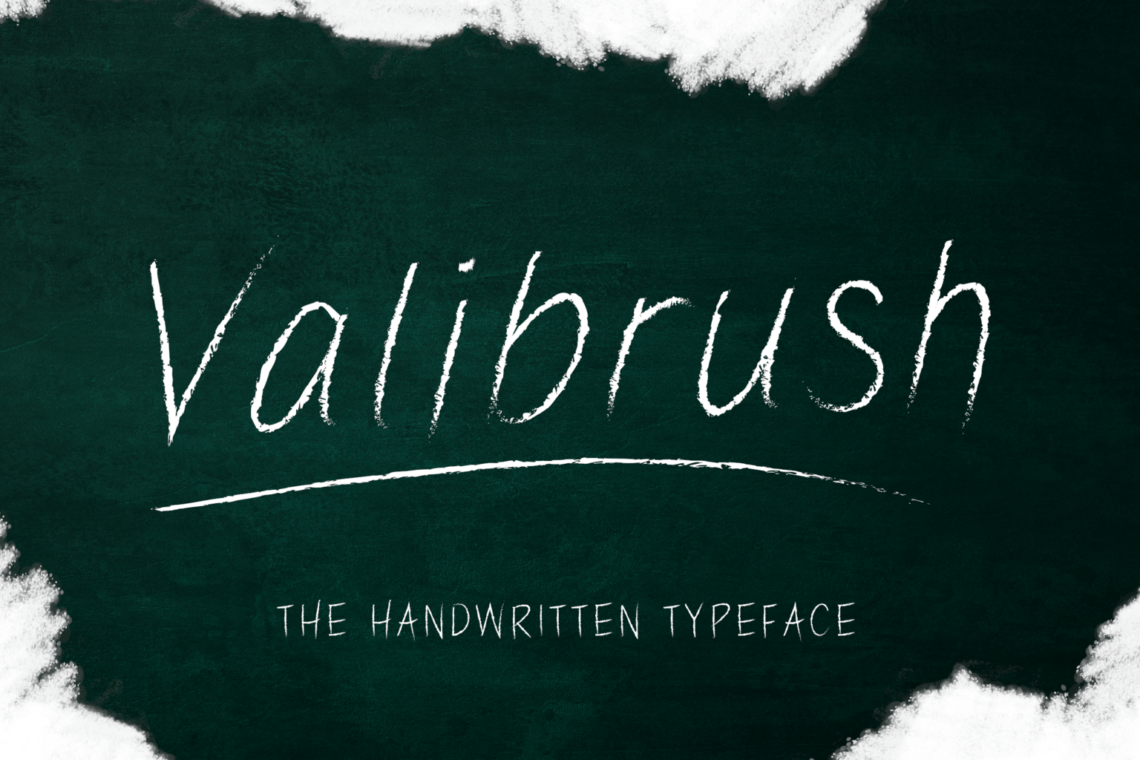
Valibrush Handwritten
Valibrush Handwritten is a fully handwritten font like writing on a whiteboard, belonging to the classic script font family. with an understated realism writing style, which allows you to create different nuances for different projects. Do you need “flaunty & loud” or “soft & romantic” there is a combination of letters that is suitable to get the look you want. Suitable for various art project designs and designs, such as wedding designs, social media posts, advertisements, product packaging, product designs, label, photography, watermark, special event, and others as needed.